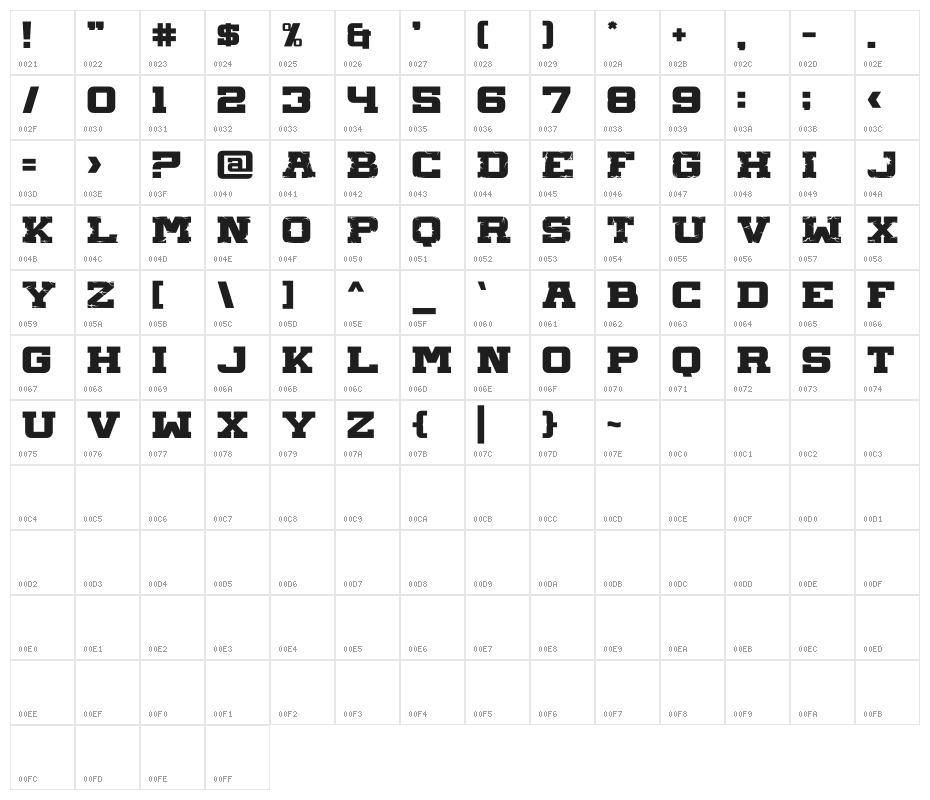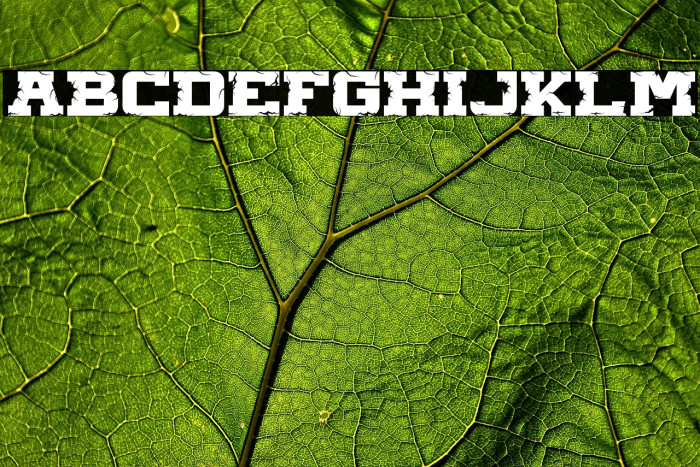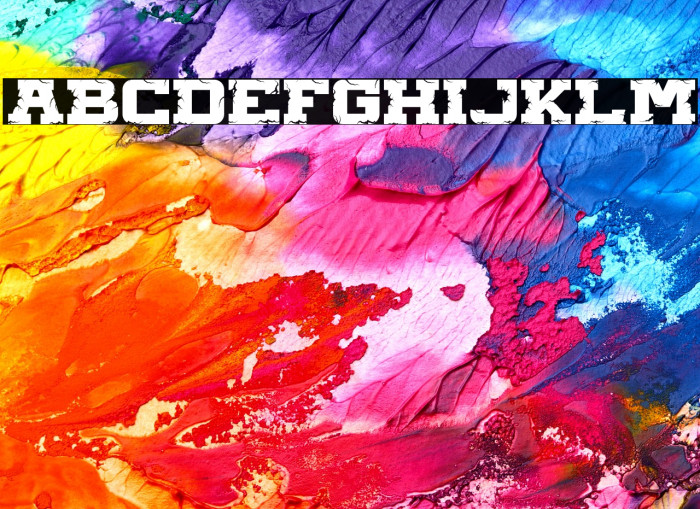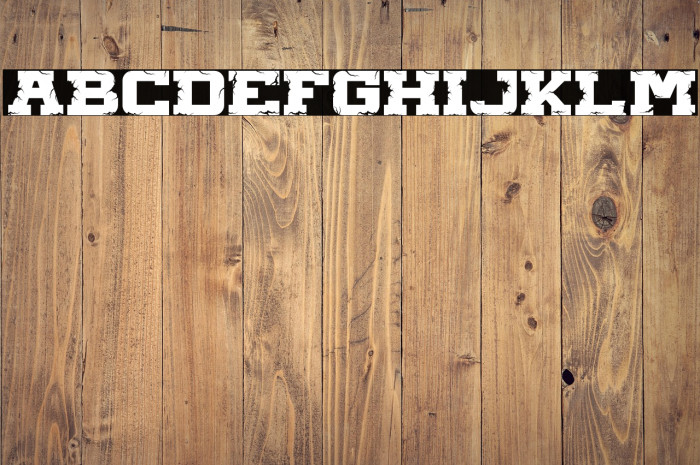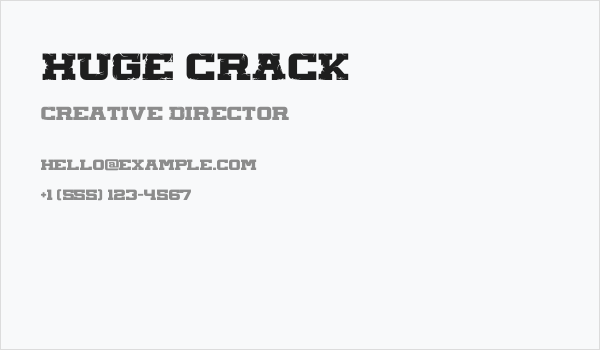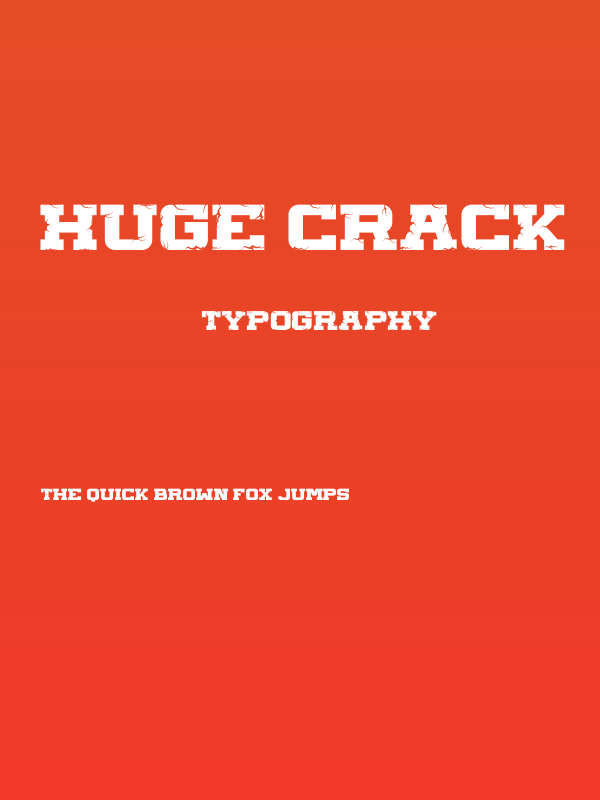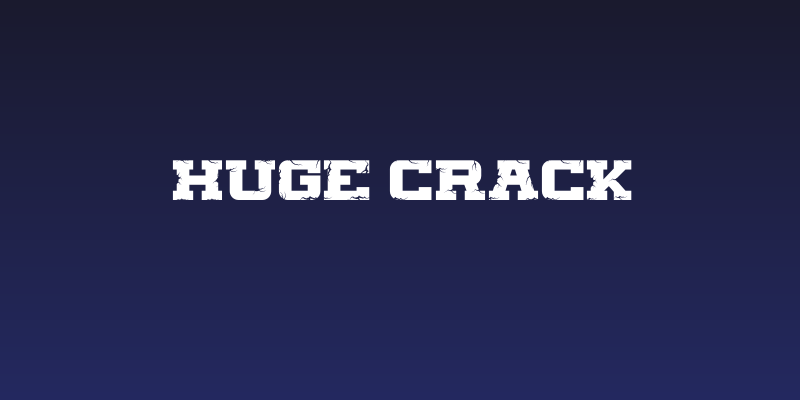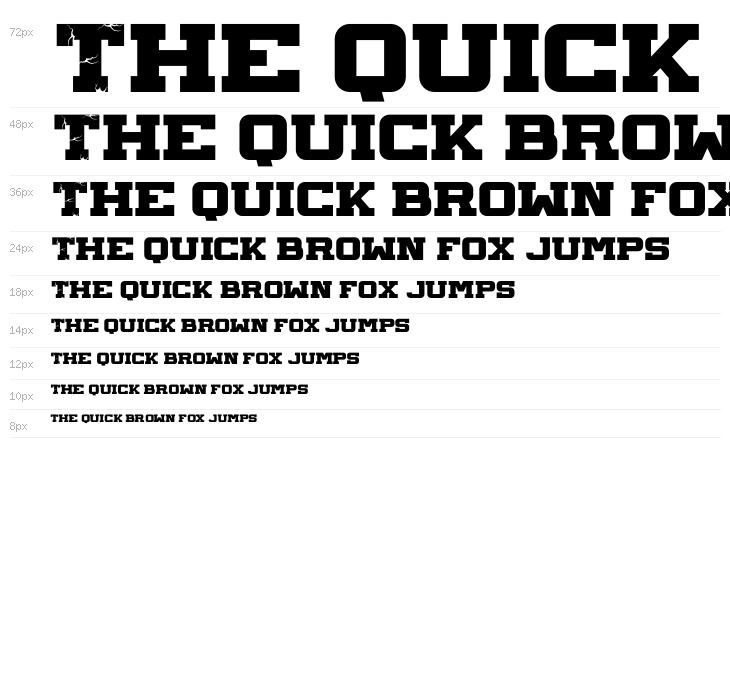
HUGE CRACK Font
HUGE CRACK Description
This font features a bold and rugged design with a distressed, cracked texture that gives it a unique, weathered appearance. The uppercase letters are particularly striking, with each character exhibiting a rough, uneven surface that suggests a sense of age and wear. The numbers and special characters maintain this distressed style, providing a cohesive look across all elements. The font's bold weight and strong presence make it ideal for impactful designs where a gritty, industrial feel is desired.
| Proposed Projects | Ideal for posters, album covers, branding for outdoor or adventure-themed products, and any design needing a bold, gritty aesthetic. |